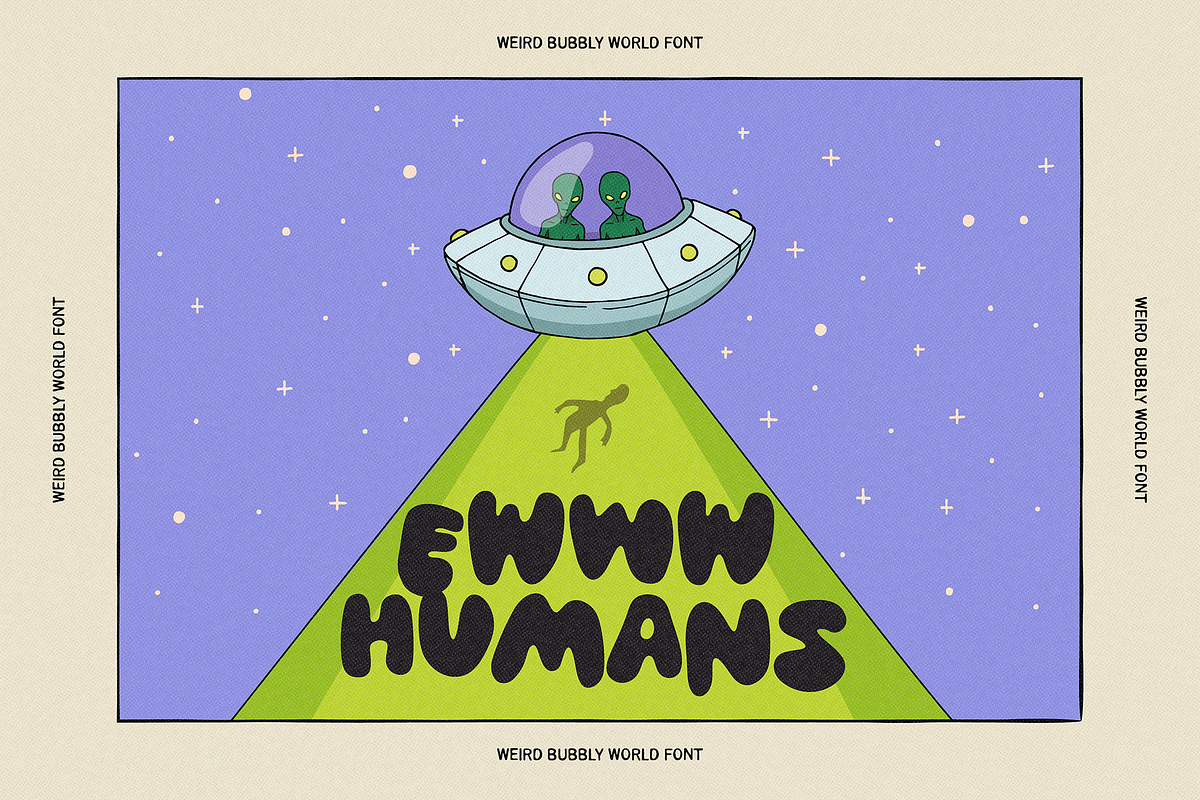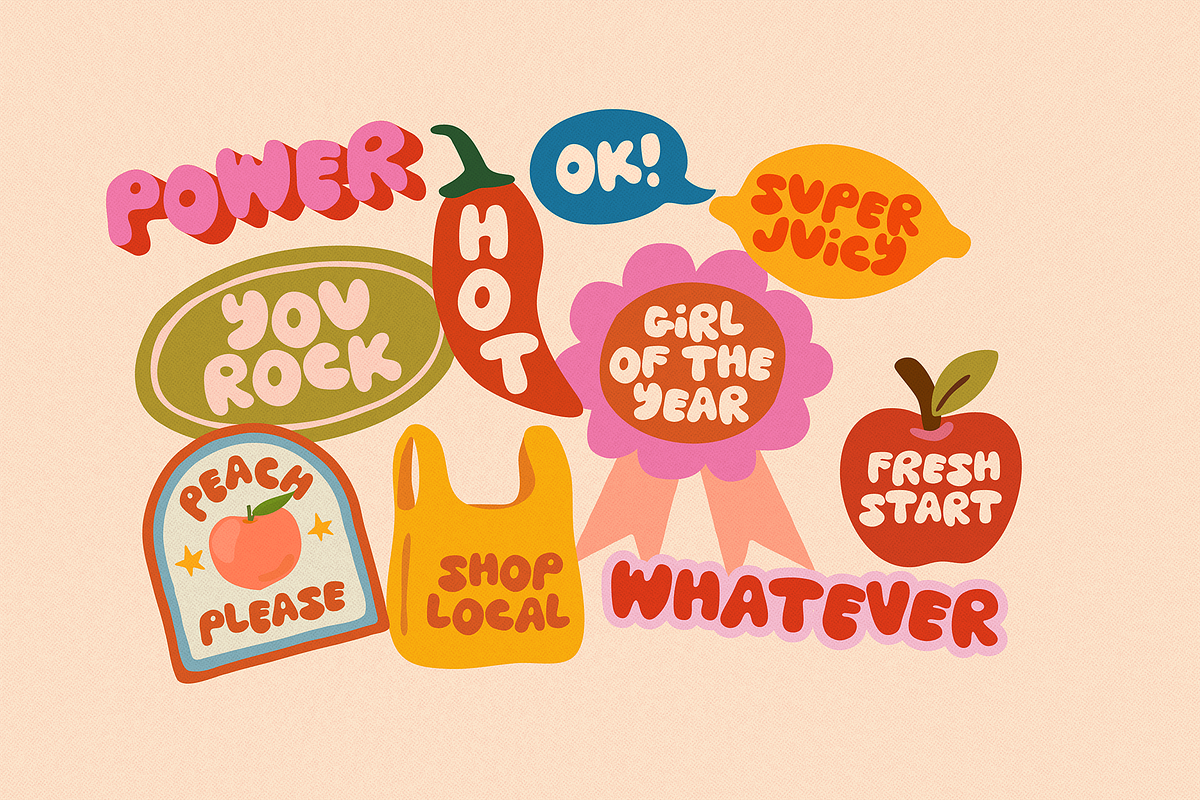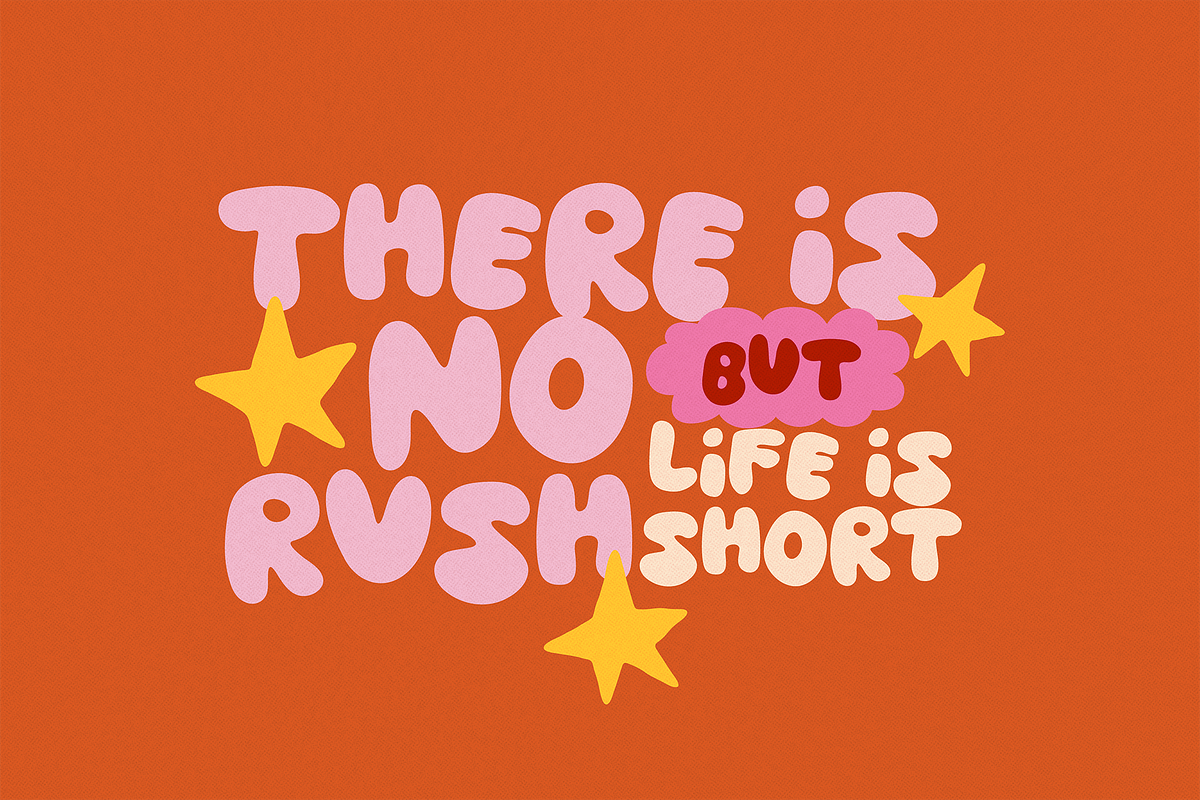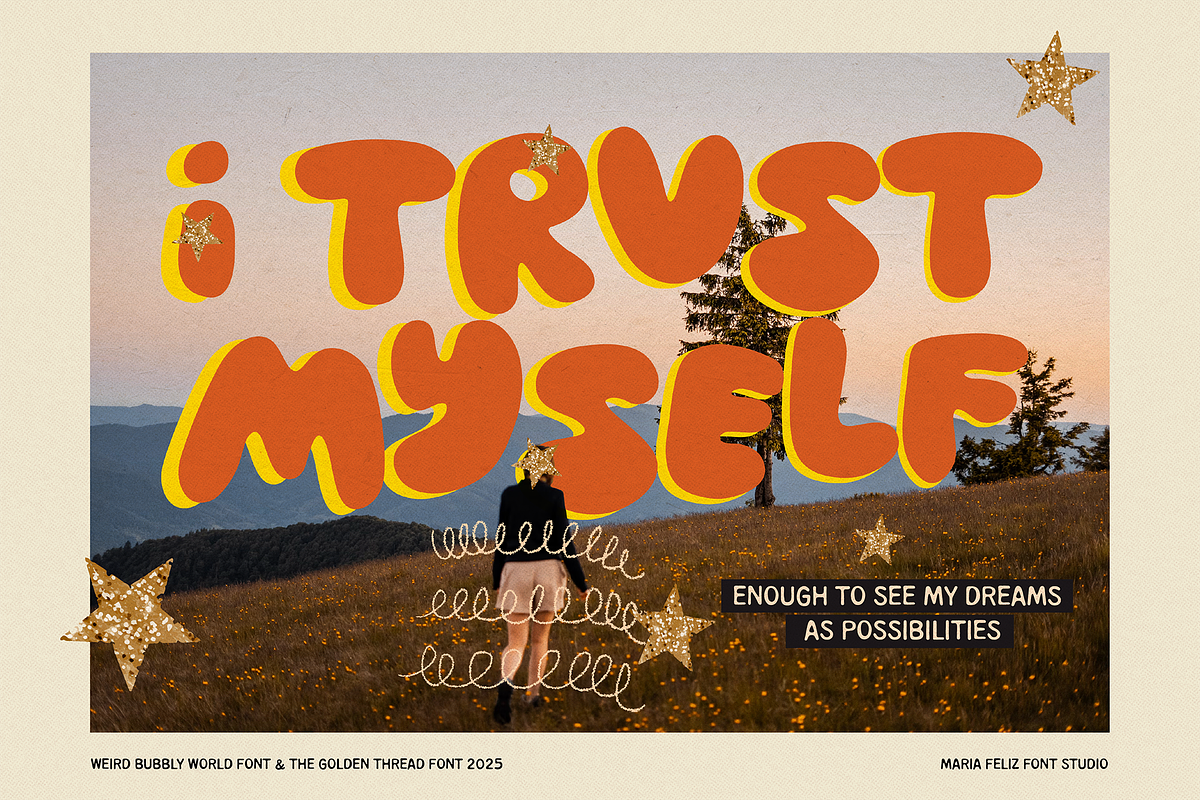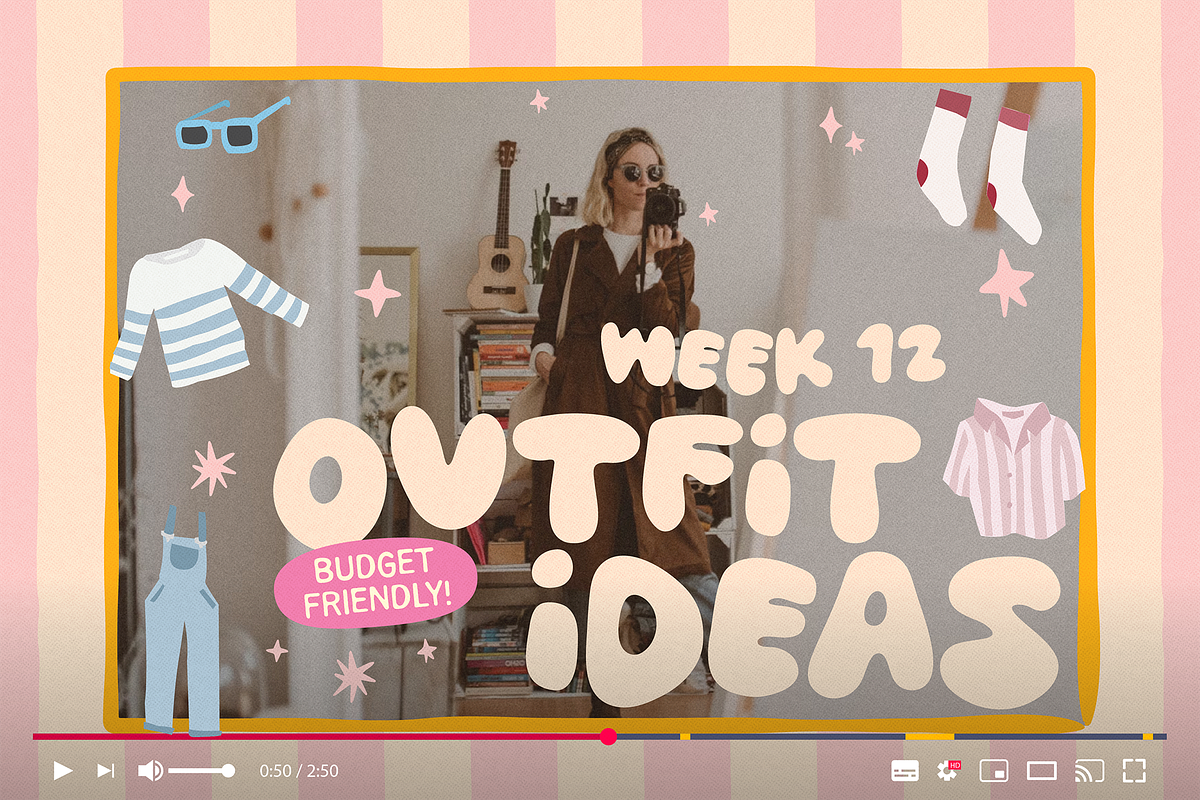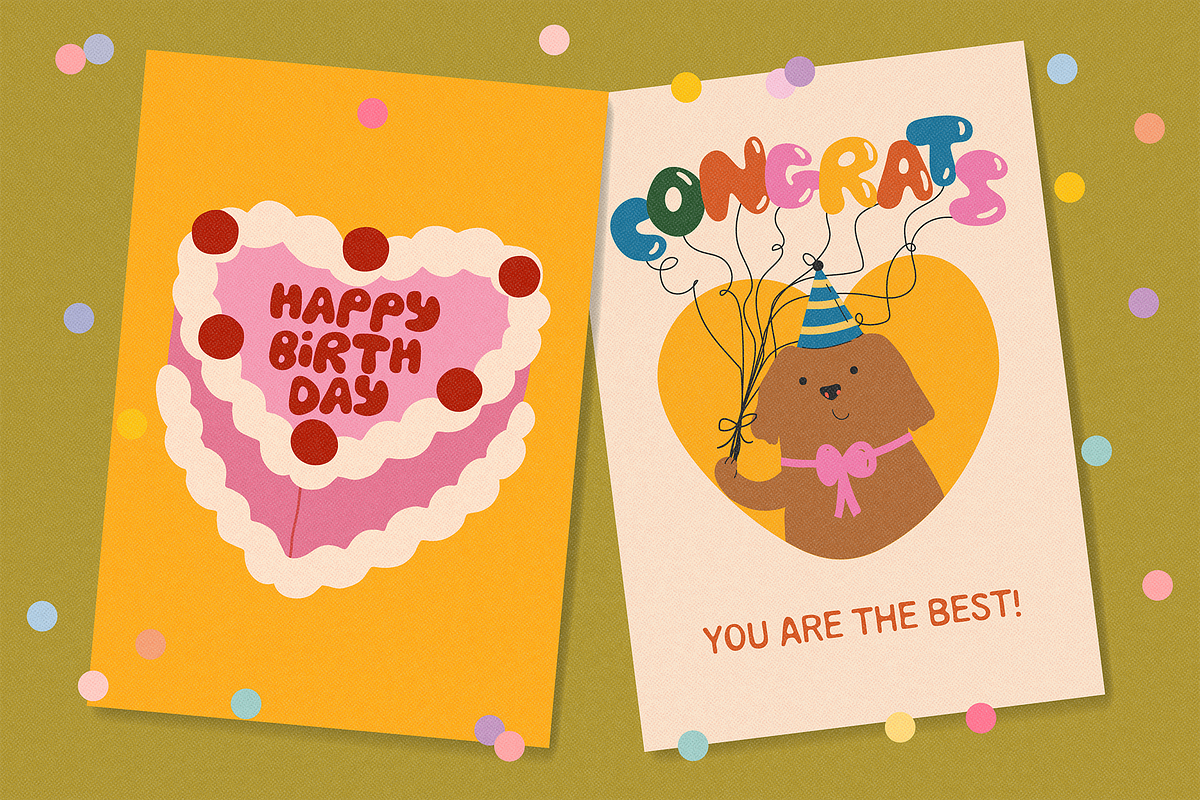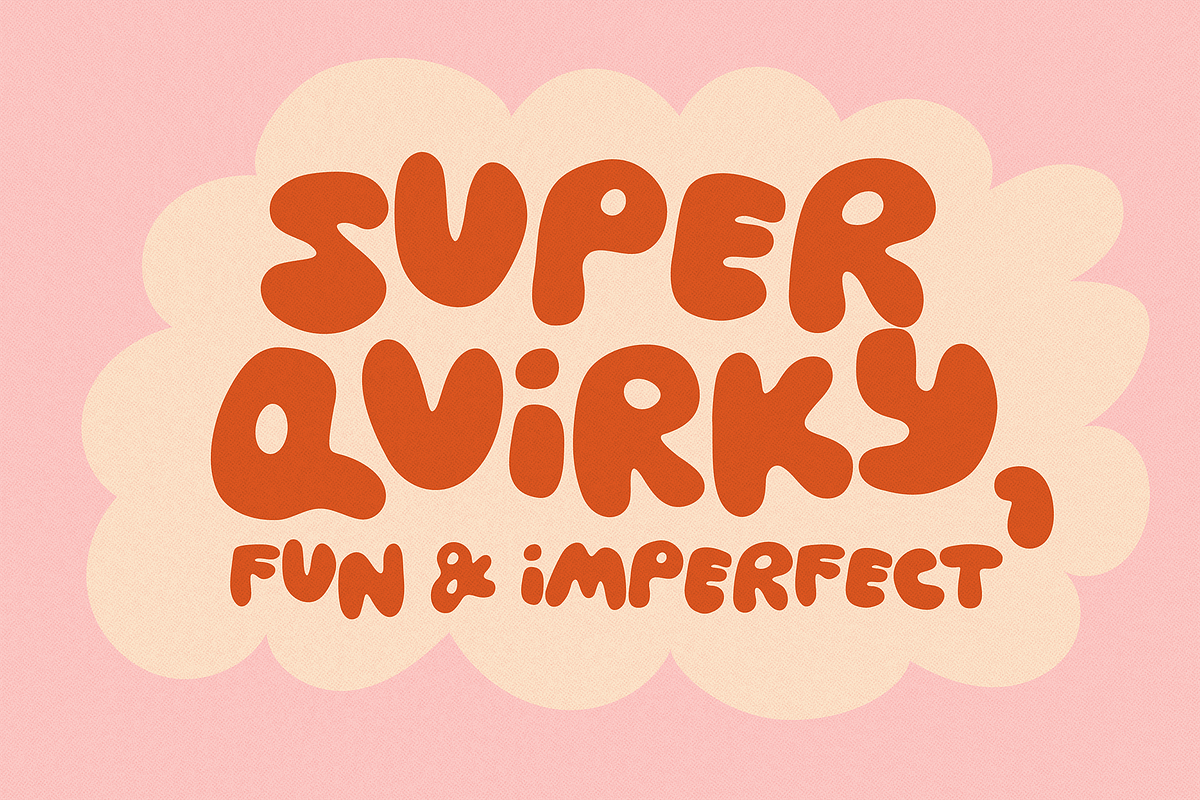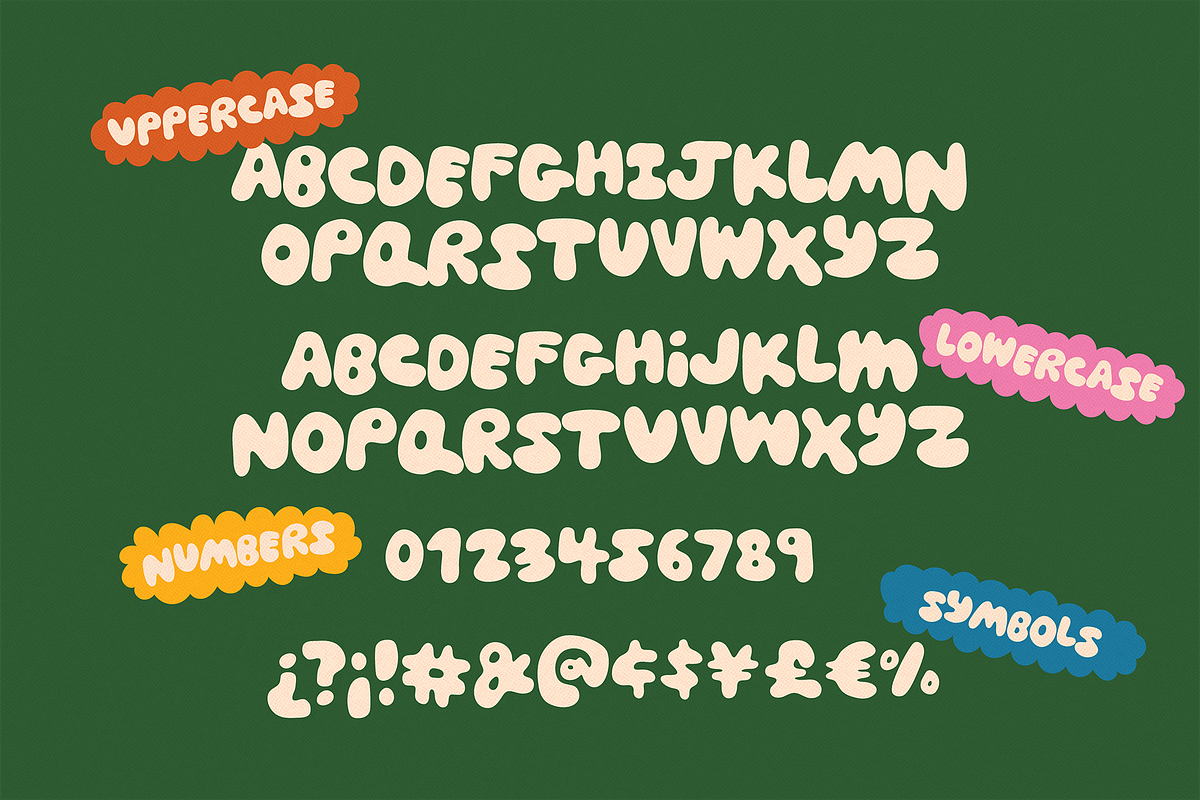
WEIRD BUBBLY WORLD | BUBBLY FONT
WEIRD BUBBLY WORLD is a bold, chunky, and bubbly display font full of fun and quirky vibes! Hand-drawn with an intentionally irregular style, it mixes uppercase and lowercase letters to give your designs a playful, handmade feel.
This font is perfect for bold titles, fun quotes, eye-catching stickers, t-shirts, party invites, and more. Add a touch of shine, and it instantly transforms into balloon-style lettering—great for birthday cards or festive signage! Its simplicity and personality make it a super versatile choice for creative projects. Whether you’re designing for kids, celebrations, or just want something funky and joyful—this font brings the fun!